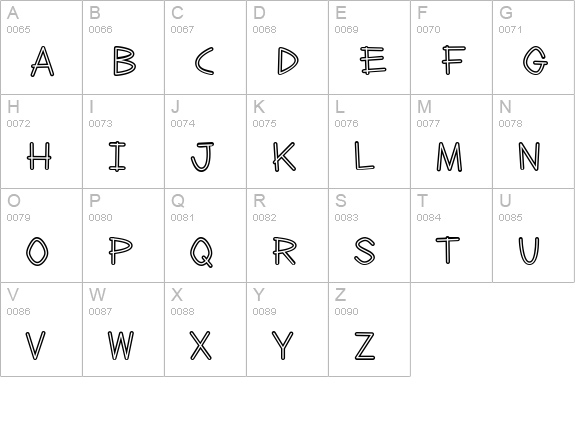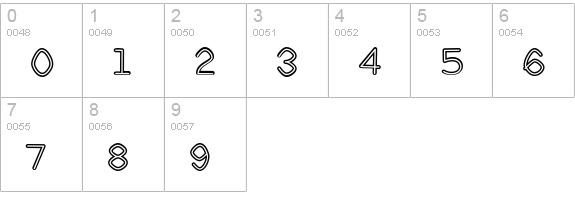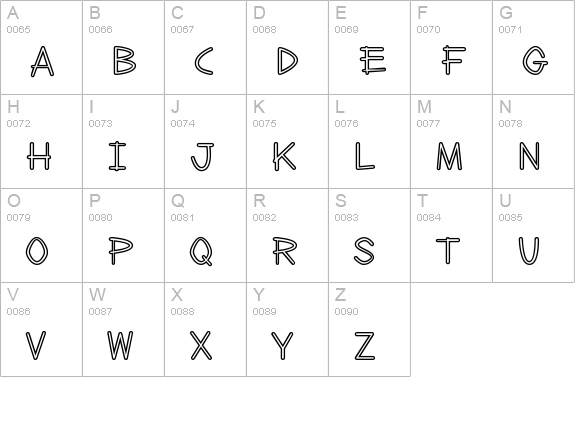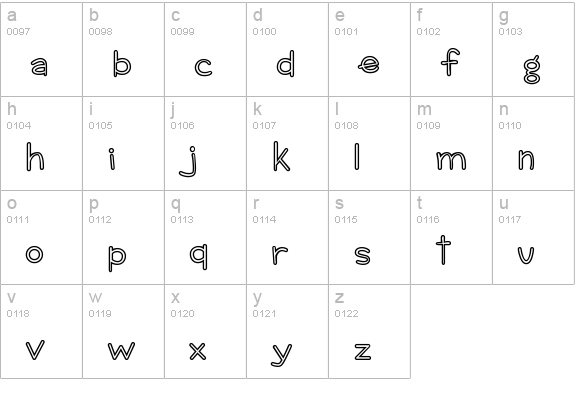
Clever Duke BTN Smooth Inline Font Details
Clever Duke BTN Smooth Inline font is a sophisticated and elegant typeface that exudes a sense of intelligence and creativity. Its clean lines and smooth curves make it perfect for adding a touch of sophistication to any design project. The inline style adds an extra layer of visual interest, making this font stand out from the crowd. What makes Clever Duke BTN Smooth Inline font even more appealing is that it is completely free to download. You can easily access this stylish typeface at FontsMarket.com, where you can download it and start using it in your projects right away. With its timeless design and versatile use, Clever Duke BTN Smooth Inline font is sure to become a staple in your font collection.